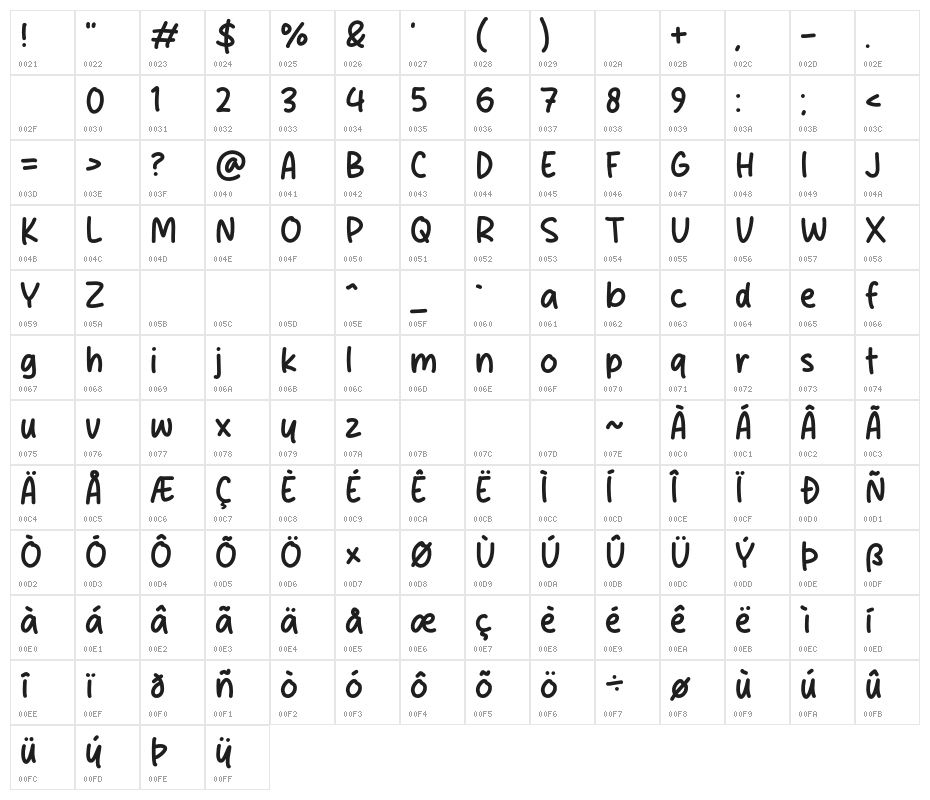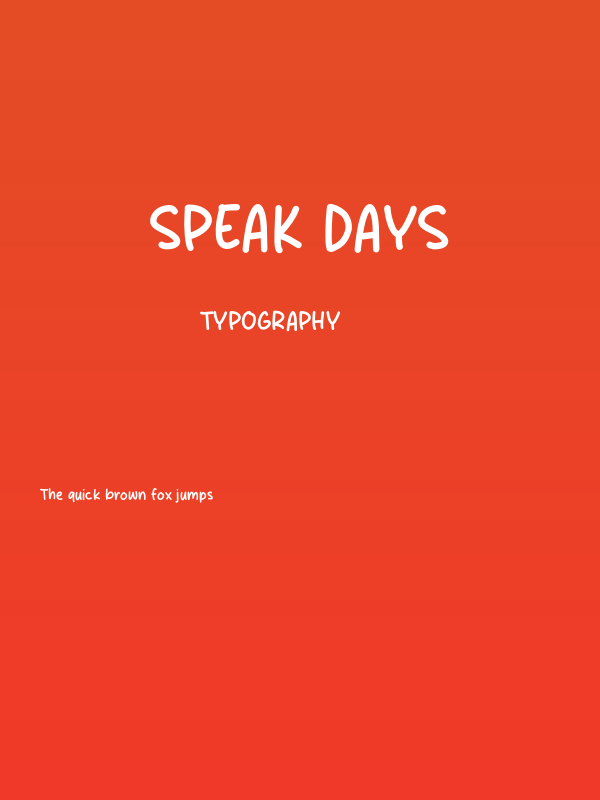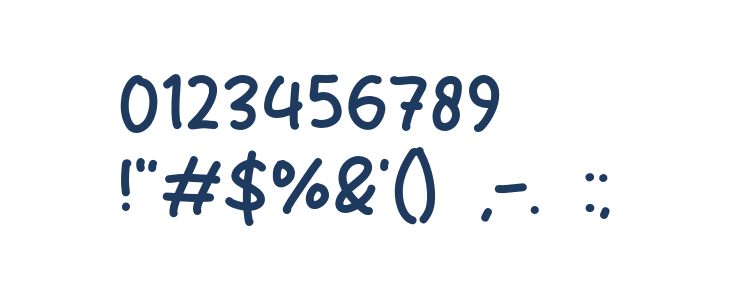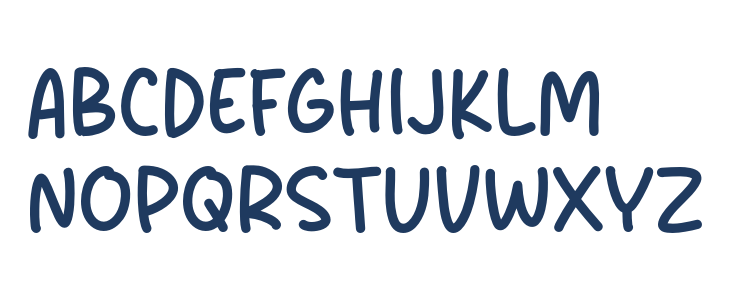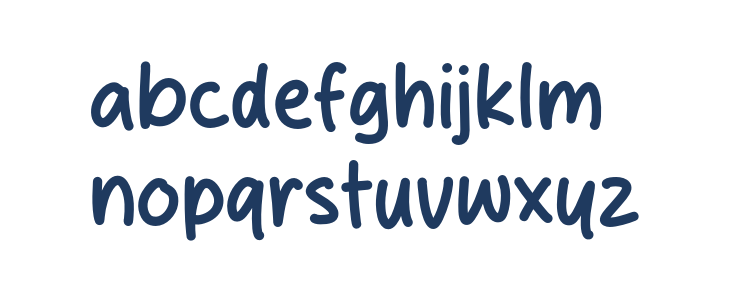
Speak Days Font
Speak Days Description
A playful, rounded handwritten typeface with consistent stroke width and informal, friendly character shapes. The letters are slightly irregular, mimicking natural handwriting, with open counters and a casual appearance.
| Overall Style | Playful, Informal, Friendly |
| Use Case | Headlines, Short text, Posters, Branding |
| Proposed Projects | Children’s books, educational materials, greeting cards, informal branding, posters. |